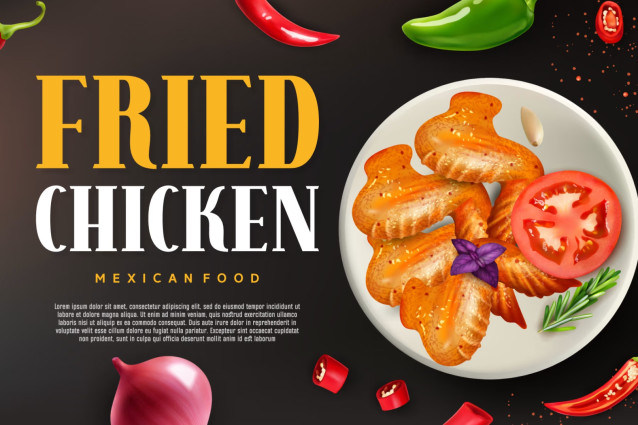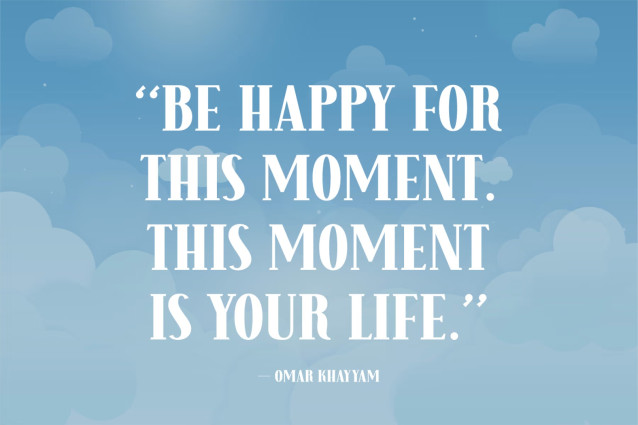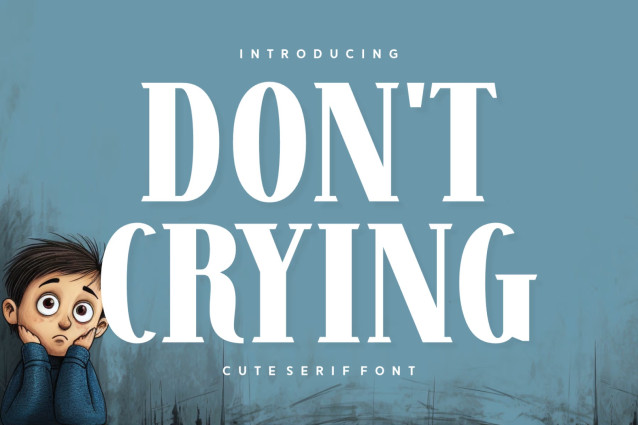
Don’t Crying Font
Introducing “Don’t Crying”, a versatile treasure trove of fonts guaranteed to elevate your creative pursuits. The robustness of a Serif Font meets the charm of Elegant Fonts, marrying modernity with nuanced playfulness. It’s a framework that channels authenticity while catering to a variety of needs like photography accents, apparel design, book covers, and branding.
In providing an array of Card Fonts and Clean Fonts, “Don’t Crying” ensures crisp, clear communication. Whether you’re designing magazine spreads, packaging, or crafting heartfelt greeting cards, this font suite has got you covered. Its versatility extends to crafting engaging logotypes and creating impactful quotes with Smooth Fonts.